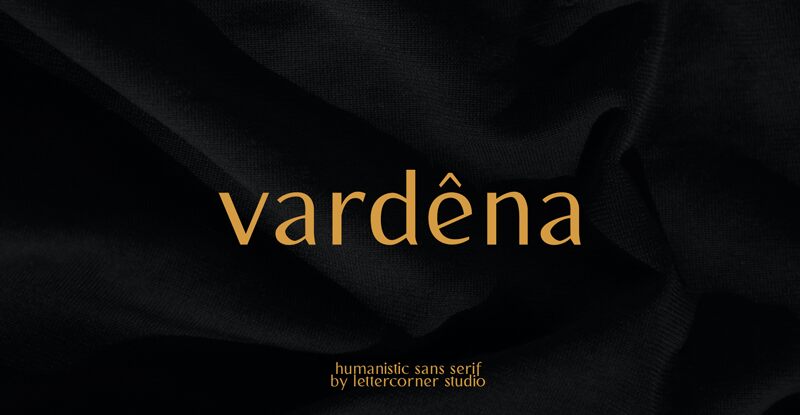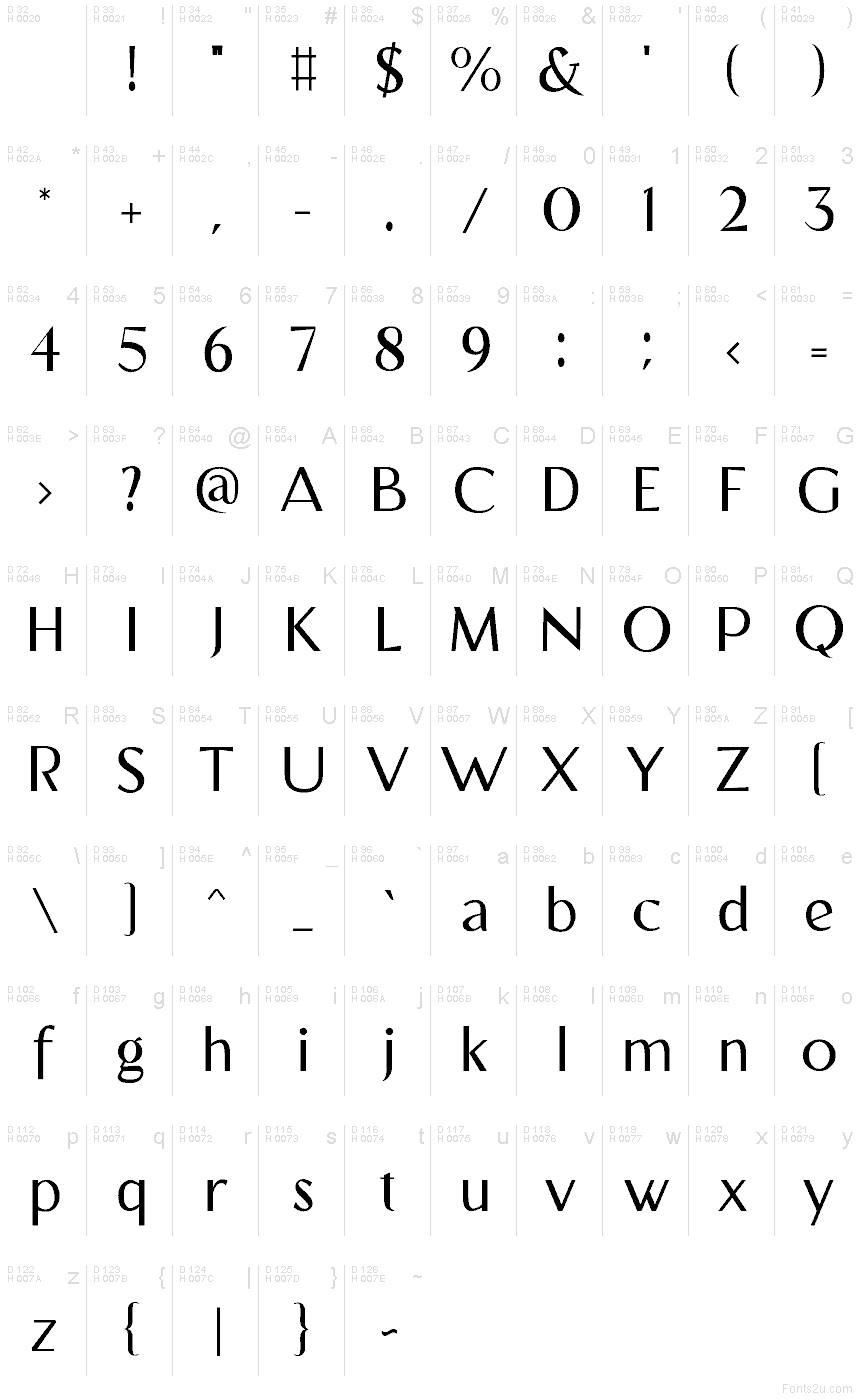
Vardena font by Mocha Frappuccino presents a dilemma that rarely occurs in design: an effortlessly professional style is up for grabs and it can be freely acquired. This clean sans serif free font includes all the necessary English readers elements, even managing to take the lead in elegant dashes that exceed expectations with a touch of sophistication.
The modern Varden will present type faces as beautiful as you’ve imagined with logotypes, packaging designs, magazines, pamphlets, books and e-books covers and titles or headers. Additionally use it for branding and rebranding projects (online and offline), websites design, business cards, resumes and interviews summaries…